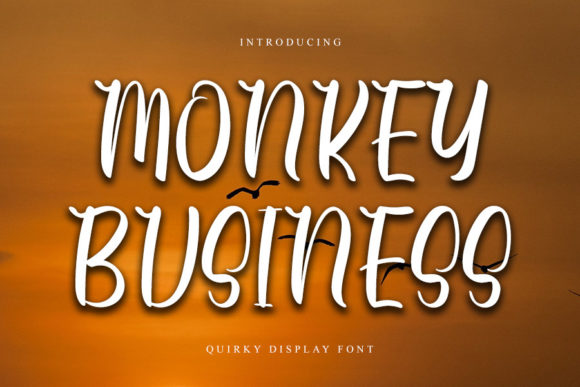
Journey into the realm of enchanting script fonts, where Monkey Business reigns supreme. This meticulously crafted font family, a testament to timeless calligraphy, beckons you to add a touch of elegance and charm to your creative endeavors. Inspired by the enduring beauty of handwritten scripts, Monkey Business captivates with its contemporary flair and flawless execution. Each letter dances across the page with grace and fluidity, inviting you to explore a world of boundless possibilities.
Designed to elevate your projects to new heights, Monkey Business exudes sophistication and versatility. Its balanced strokes and varied forms create a harmonious rhythm that draws the eye and captivates the imagination. Whether you're crafting heartfelt Christmas cards, whimsical invitations, or enchanting logos, Monkey Business seamlessly adapts to your vision, adding a touch of magic to every creation.
With Monkey Business as your creative companion, you'll find yourself immersed in a symphony of styles. Its enchanting curves and playful flourishes lend an air of whimsy and delight to your designs. Explore the boundless potential of this versatile font, letting your imagination take flight as you weave words into works of art.
Enter a world where elegance meets innovation with Monkey Business. Created by the visionary Inermedia STUDIO, this font is a testament to their passion for creating typographic masterpieces. Their dedication to detail and unwavering commitment to quality shine through in every stroke and curve of Monkey Business, ensuring an exceptional experience for every user.
Whether you're a seasoned designer or just starting your creative journey, Monkey Business is the perfect font to add a touch of sophistication and charm to your projects. Its user-friendly nature makes it accessible to all skill levels, inviting you to explore the world of typography with ease. Embrace the timeless beauty of Monkey Business and watch your creative dreams come to life.